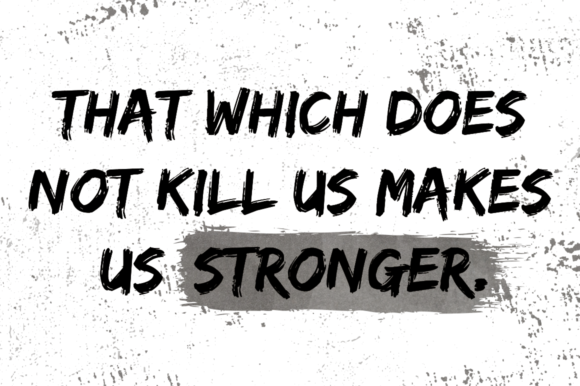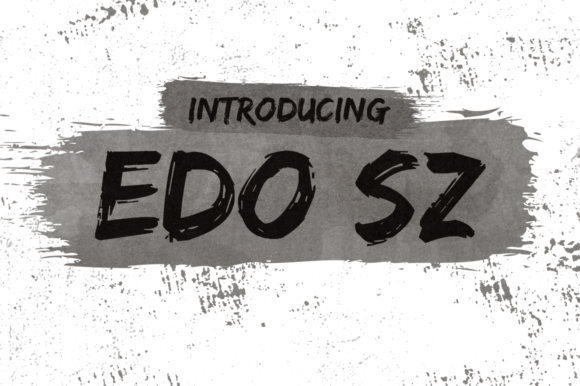
HomePersonal Use FreeEdo SZ Personal Use Free Edo SZ FacebookTwitterPinterestWhatsApp 1 of 2 About Edo SZ Font Edo SZ is a cool, painterly font that looks great in alternative and hipster styled designs. This display font is a freebie from Vic Fieger. DOWNLOAD NOW People also explored Feminism Font My Sweet Farmhouse Font Mailstone Font Angels Font Vicky Little Kitty Font Now Simple Maheeb (Arabic Font) Font Beach Umbrella Font 215 0 TagsEdo SZEdo SZ Font Previous articleKarmatic ArcadeNext articleVipnagorgialla LEAVE A REPLY Cancel reply Comment: Please enter your comment! Name:* Please enter your name here Email:* You have entered an incorrect email address! Please enter your email address here Website: Save my name, email, and website in this browser for the next time I comment. Personal Use Free Concre Personal Use Free Read more about this font Lion Teen Personal Use Free Read more about this font Wallabys Junior Personal Use Free Read more about this font Austin Personal Use Free Read more about this font BLOG Using Fonts in Digital Marketing: Tips to Strengthen Your Brand Identity In the realm of digital marketing, every visual element plays a crucial role in shaping a brand's identity, and fonts are no exception. The... Where to Buy American Fonts Online in 2024 Free vs Paid Fonts: Why Investing in Premium Fonts Is Worth It The 10 Best Handwriting Fonts to Add Personality to Your Designs